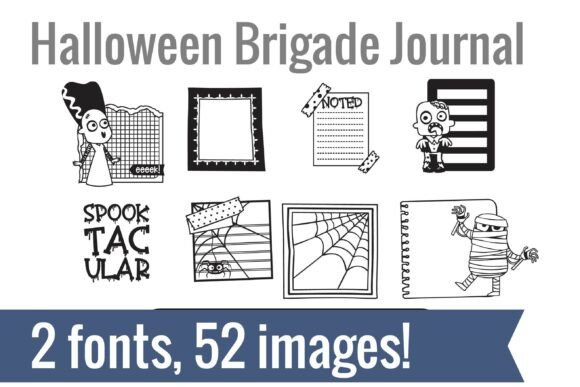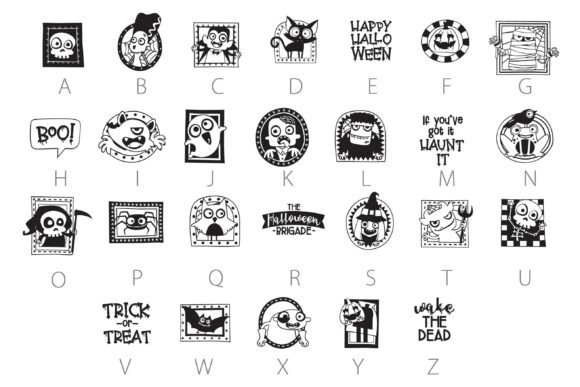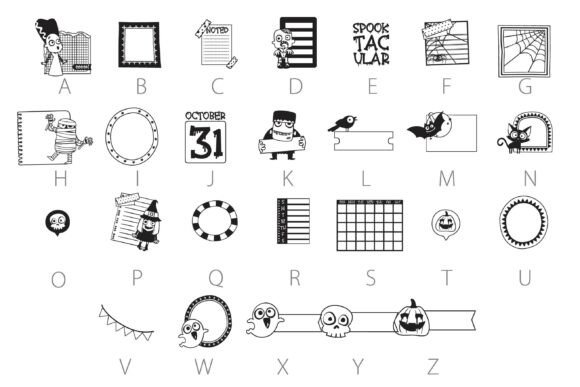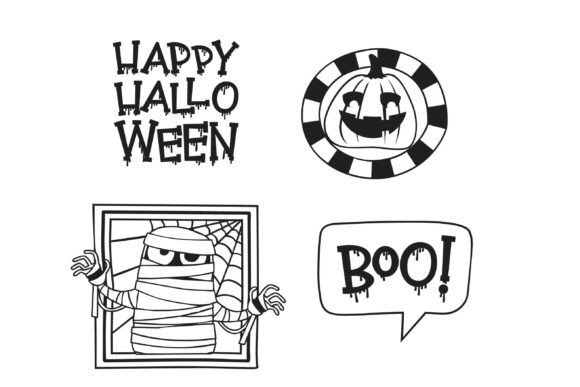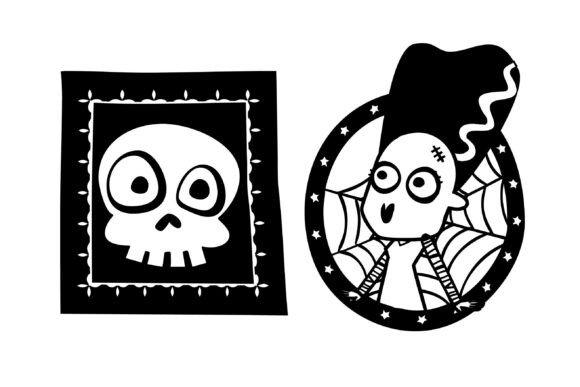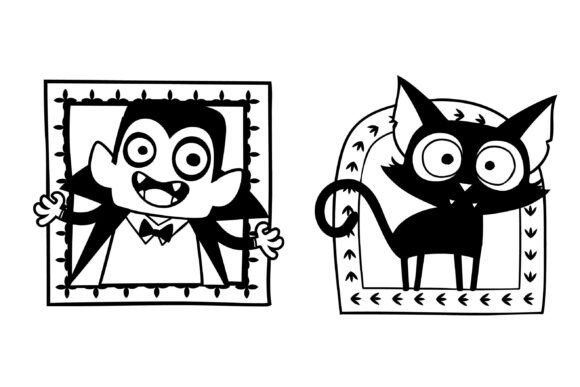
Introduction to Halloween Brigade Dingbats Font
Unlock endless creativity with two perfectly coordinated fonts.
There are two dingbat fonts in this bundle, both featuring the cutest monsters and spooky elements Tired of spending hours searching for the perfect icons and graphics.
Key Features of Halloween Brigade Dingbats Font